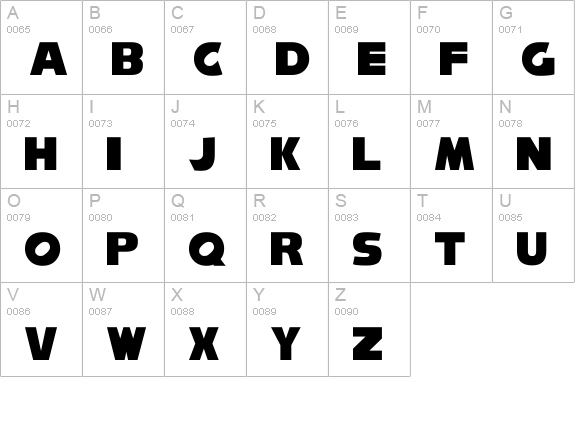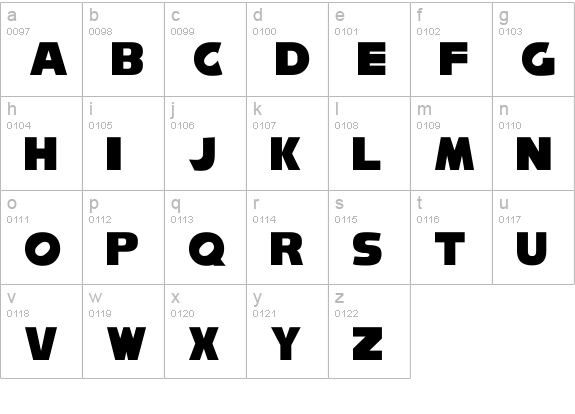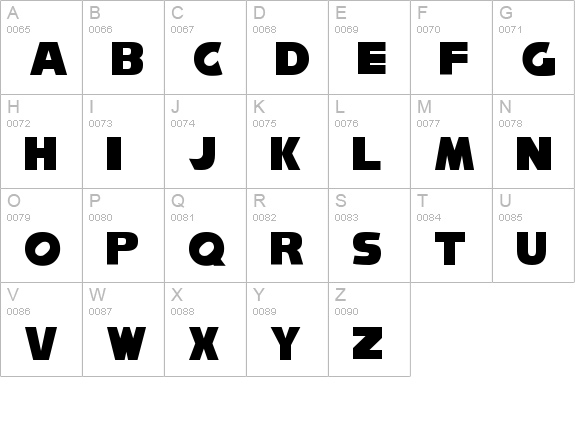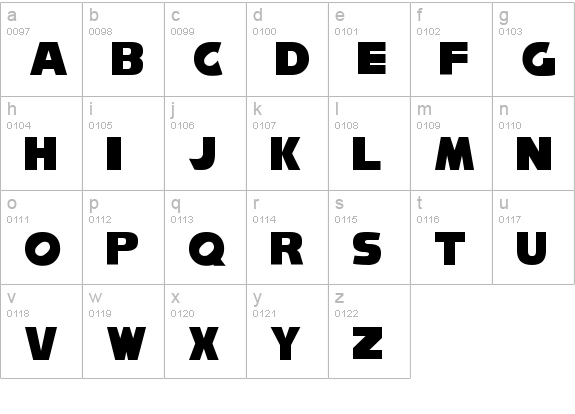
NiseSonic Font Details
NiseSonic font is a sleek and modern typeface that exudes a sense of energy and dynamism. Its clean lines and bold strokes make it perfect for a wide range of design projects, from branding to advertising to editorial layouts. With its unique style and eye-catching appearance, NiseSonic font is sure to make a statement and capture the attention of your audience. The best part? NiseSonic font is completely free to download at FontsMarket.com. That's right, you can add this striking font to your collection without spending a dime. So why wait? Head over to FontsMarket.com now and elevate your designs with the dynamic energy of NiseSonic font.